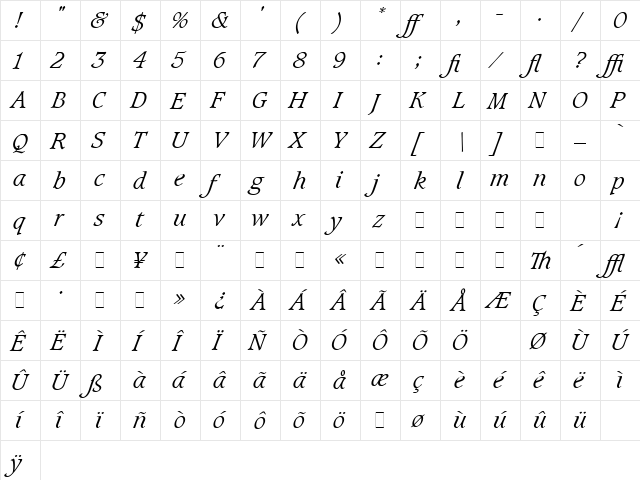
Design Context for Caxton Light Italic LET Typeface
Caxton Light Italic LET offers clean, dependable letterforms without strong stylistic allegiance, making it a practical choice for designers who need flexibility. Its italic angle brings a sense of urgency and motion to the letterforms. The delicate stroke weight brings airiness and refinement to layouts.
Pro Tip: Use Caxton Light Italic LET for emphasis, pull quotes, and subheadings where its slanted energy can add rhythm to the layout.